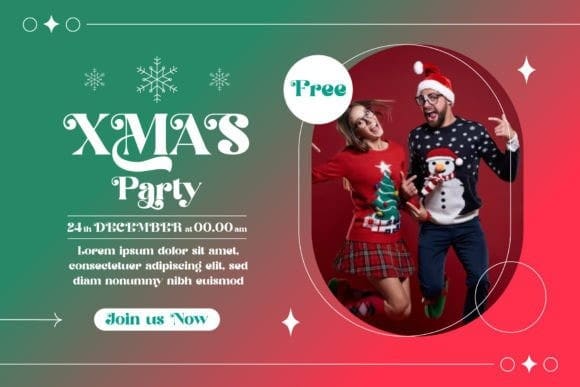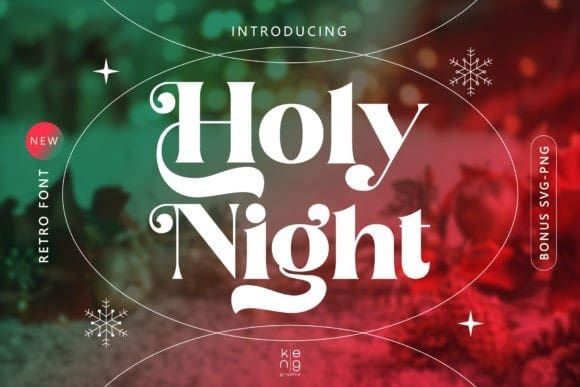
Holy Night Font
Holy Night Font, is a vintage-style retro font. Inspired by the retro typography and typography of the 60s 70s and 80s, anything written in this font is instantly recognizable and will grab attention. It has a unique shape where every corner is softer and more rounded. Use this display font to add a special retro touch to any design idea you can think of.